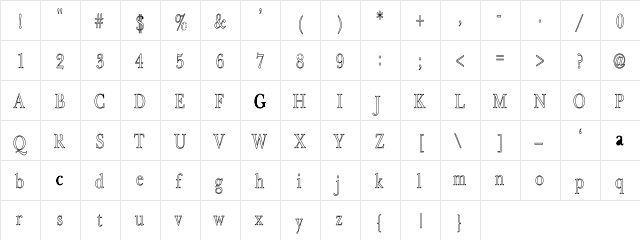
NewBaskerville-HC Regular
Design Context for NewBaskerville-HC Typeface
NewBaskerville-HC offers clean, dependable letterforms without strong stylistic allegiance, making it a practical choice for designers who need flexibility.